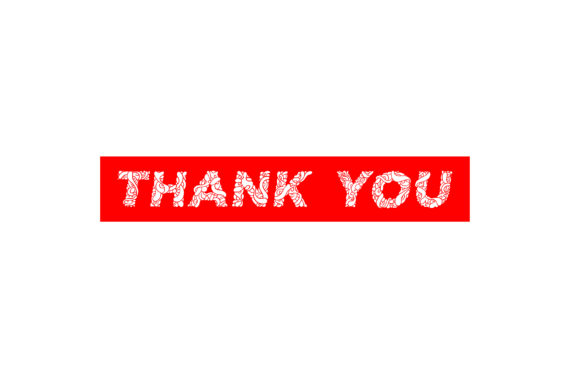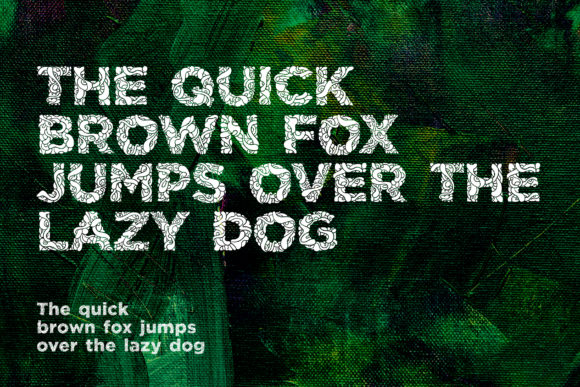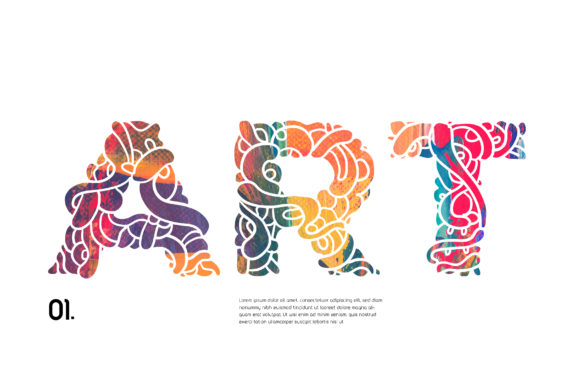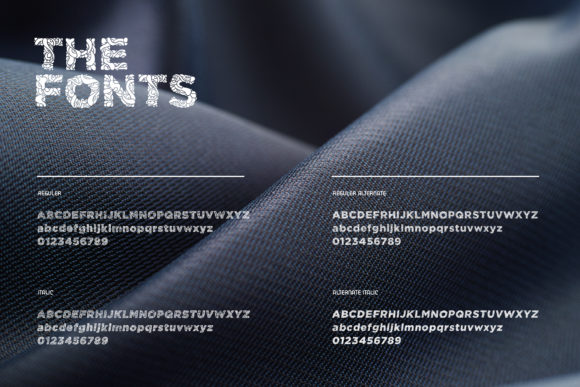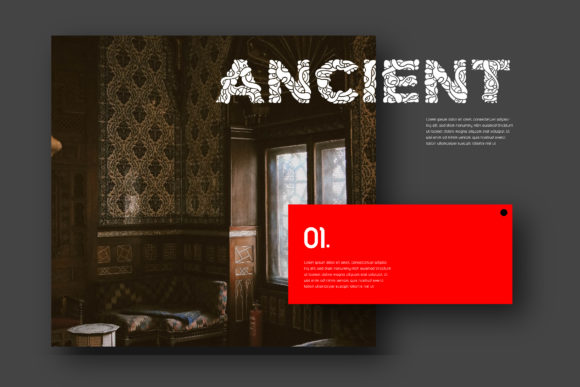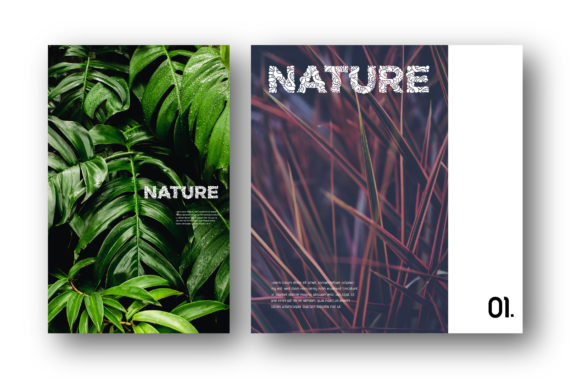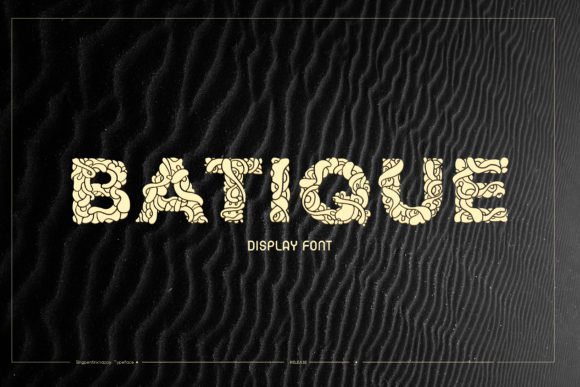
The Perfect Canvas for Your Creative Vision
Have you ever sat in front of a blank page, staring at a canvas of possibilities, and suddenly felt the rush of excitement as your ideas start to flow? That’s the moment when creativity takes over, and the world becomes your playground. For designers, this moment is a constant pursuit – and we’re here to give you the tools to make it happen.
| 👤 Author | singpentinkhappy.project |
Enter Batique Font, a bold and chunky lettered display font that’s about to take your creative ideas to the next level. This incredibly unique font is designed to stand out, making each of your designs a masterpiece. Whether you’re working on a branding project, a social media campaign, or a print advertisement, Batique Font is the perfect partner to help you make a statement.
As a designer, you know that the right font can make all the difference. With Batique Font, you’ll have the freedom to push the boundaries of your creativity, limited only by your imagination. Get ready to unleash your inner artist and make your mark with this game-changing font.
Batique Font Key Features
- Font Family: Batique Font is a unique, hand-drawn font family that offers a range of styles and weights.
- Character Set: The Batique Font family includes a wide range of characters, including uppercase and lowercase letters, numbers, punctuation, and special characters.
- Unique Characteristics: The Batique Font is known for its distinctive, hand-drawn look and feel, with subtle imperfections and variations that give it a unique, human touch.
Designer Review: Batique Font
Overall, I have mixed feelings about the Batique font. On one hand, it’s got some great qualities that make it worth considering for certain projects. ✨ The font’s unique blend of modern and vintage elements gives it a distinctive look that can add a touch of elegance to designs. ✨ The bold weights are particularly striking, and the font’s wide range of sizes makes it versatile for use in various contexts.
However, there are some limitations that prevent me from giving it a glowing review. ⚠️ The font’s readability can suffer at smaller sizes, making it less suitable for body text or other contexts where clear legibility is crucial. ⚠️ Additionally, the font’s quirky aesthetic may not be to everyone’s taste, and some users may find it too flashy or over-the-top.
Here are some specific pros and cons:
- ✨ Unique blend of modern and vintage elements
- ✨ Bold weights and wide range of sizes
- ⚠️ Limited readability at smaller sizes
- ⚠️ Quirky aesthetic may not be to everyone’s taste
Overall, the Batique font is a solid choice for designers who want to add some visual interest to their projects. However, it’s essential to weigh its pros and cons carefully and consider whether it’s the right fit for your specific needs.
Tips for Getting the Most Out of Batique Font
Use Batique Font for creative projects that require a unique, hand-drawn look.
Combine Batique Font with other fonts or graphics to add texture and interest to your design.
Use Batique Font for:
Food and beverage branding
Artistic and creative projects